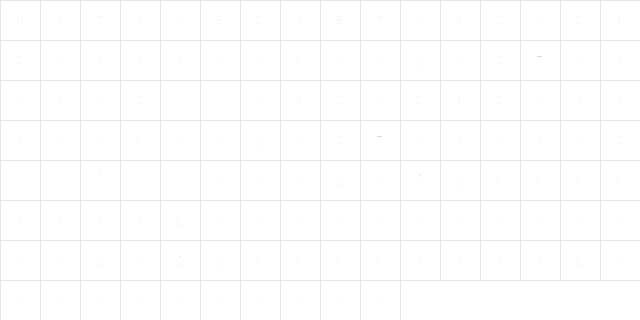
Limoline Thin Font Preview
Limoline Thin
Limoline Thin Font Details
| Style | Thin |
Design Context for Limoline Typeface
Limoline offers clean, dependable letterforms without strong stylistic allegiance, making it a practical choice for designers who need flexibility. The delicate stroke weight brings airiness and refinement to layouts.